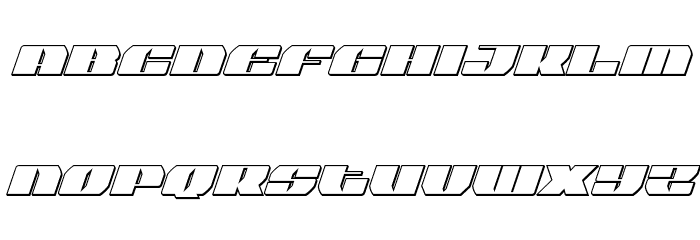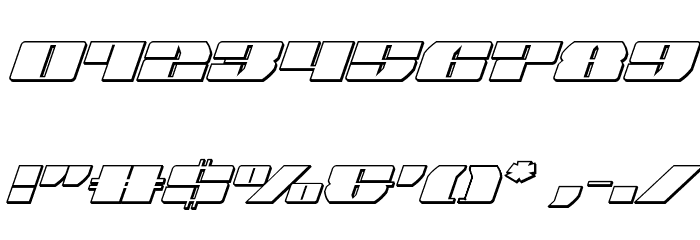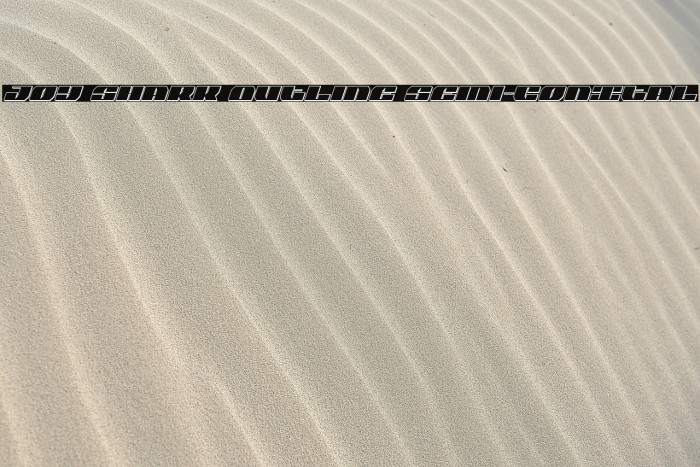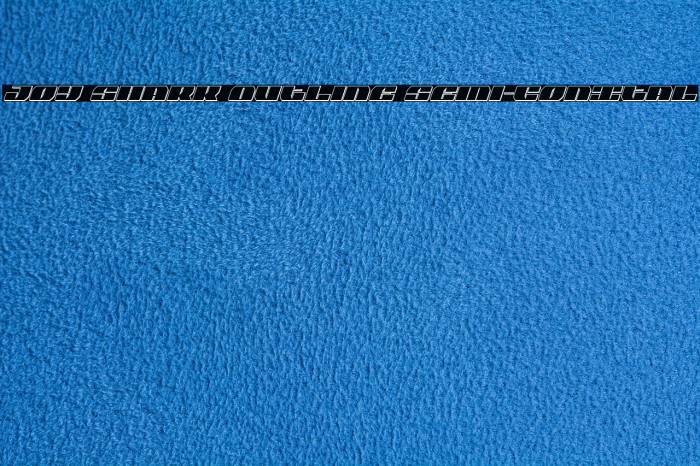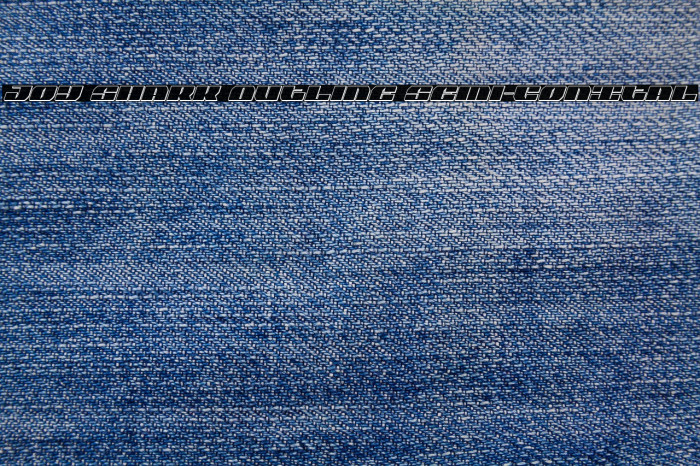
Joy Shark Outline Semi-ConItal Font
This font features a bold, geometric outline style with a semi-condensed width. The characters are angular and modern, with a futuristic aesthetic. The uppercase and lowercase letters maintain a consistent design, emphasizing sharp edges and clean lines. The numerals and special characters follow the same stylistic approach, ensuring uniformity across all glyphs. The outline effect adds a unique dimension, making it suitable for eye-catching designs. The font's semi-italic slant gives it a dynamic appearance, enhancing its contemporary feel.
A bold, geometric outline font with a semi-condensed, semi-italic style.
- Proposed Projects: Ideal for futuristic branding, tech-related projects, video game titles, and modern posters.